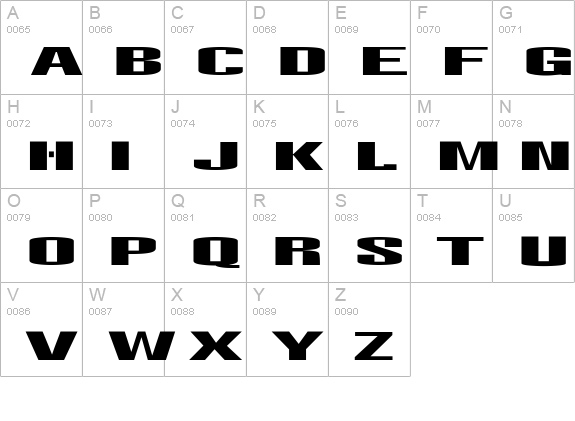
Nighttime Font Details
Nighttime font is a captivating and stylish typeface that exudes a sense of mystery and elegance. Its intricate design and sleek lines make it perfect for adding a touch of sophistication to any project. Whether you're creating a poster, logo, or branding materials, Nighttime font will surely make your text stand out. The best part? Nighttime font is completely free to download at FontsMarket.com. This means you can easily access this stunning font without any cost, allowing you to elevate your designs without breaking the bank. With its unique and eye-catching appearance, Nighttime font is sure to become a go-to choice for designers looking to make a statement. Don't miss out on the opportunity to enhance your projects with the alluring Nighttime font. Download it for free today at FontsMarket.com and start creating stunning visuals that leave a lasting impression.